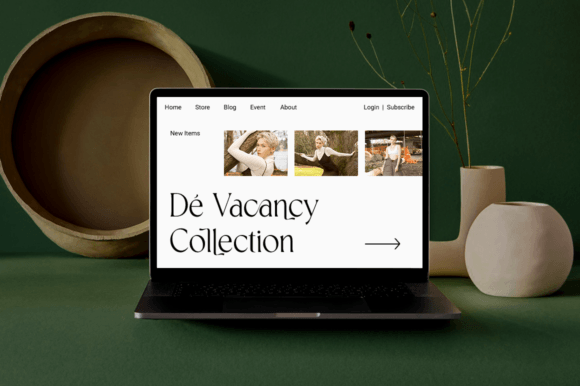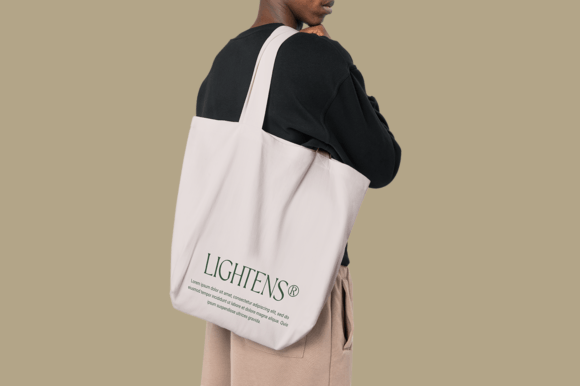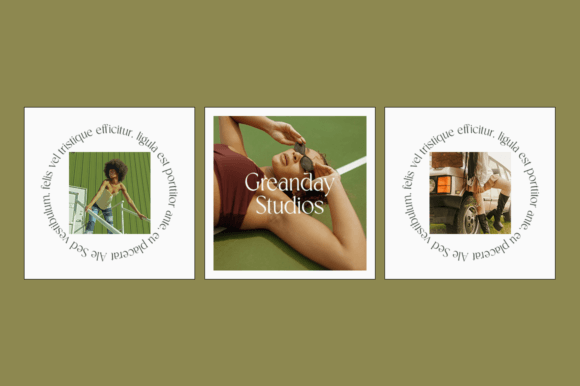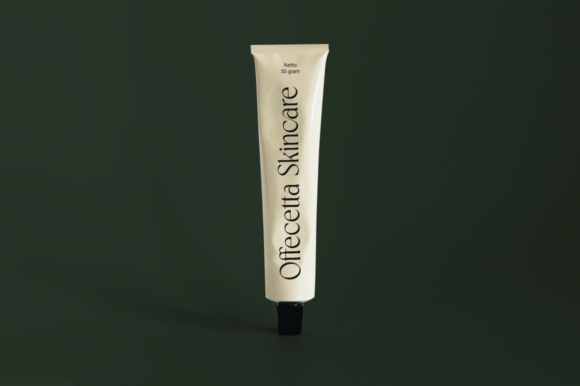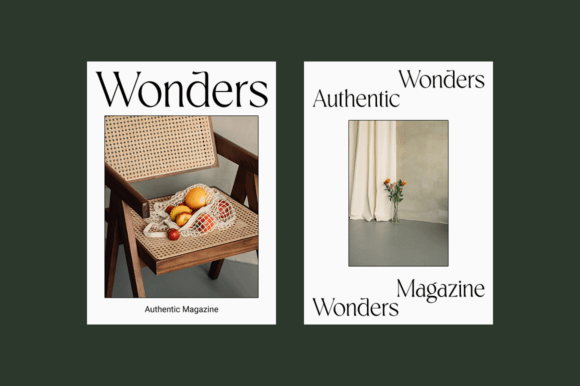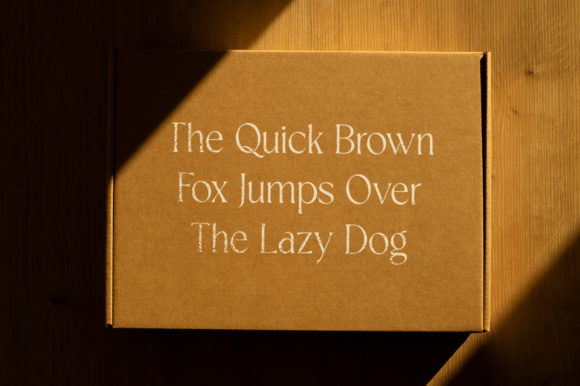
Discover the Timeless Elegance of Academia Font
Have you ever stared at a blank page, waiting for the perfect font to spark your creativity? I’m sure we’ve all been there. For designers, the hunt for the perfect font can be a daunting task. But what if I told you that you’ve been missing out on a hidden gem? Enter the Academia Font, a sophisticated, thin-lettered serif font that’s sure to elevate your designs to the next level.
Academia Font is more than just a pretty face – it’s a versatile tool that can be used across a wide range of designs, from elegant posters to sophisticated business cards. Its neat and clean style makes it a valuable addition to any designer’s toolkit, and its adaptability ensures that it will never go out of style.
Academia Font Key Features
- Font Size: The font has a large character set with over 1,000 glyphs, making it suitable for academic and professional use.
- Resolution: Academia Font is optimized for high-resolution displays and can be used at resolutions up to 300 DPI.
- Unique Characteristics: The font features a distinctive, elegant design with a high level of detail, making it ideal for academic and professional applications.
- Language Support: Academia Font supports a wide range of languages, including Latin, Greek, and Cyrillic alphabets.
Academia Font Review
Overall, I think the Academia Font is a great choice for academic and research-related materials. It has a classic, timeless feel that evokes a sense of tradition and sophistication.
- ✨ The font is highly legible, making it perfect for long documents and academic papers.
- ✨ The classic feel of the font makes it a great choice for publications, journals, and other academic materials.
- ✨ The font is highly customizable, allowing users to adjust the spacing, size, and style to suit their needs.
- ⚠️ The font may not be the best choice for modern, creative projects that require a more playful or experimental feel.
- ⚠️ The font may not be as effective for digital displays, as it can appear a bit pixelated or fuzzy.
Overall, I think the Academia Font is a solid choice for academic and research-related materials. It’s highly legible, customizable, and has a classic feel that’s perfect for publications and journals. However, it may not be the best choice for more modern or creative projects.
Academia Font Practical Application Guide
For best results, use Academia Font in headings and titles to create a clear hierarchy of information. It’s also ideal for academic and educational content, such as research papers, essays, and presentations.
When using Academia Font, keep in mind that it’s a serif font, so it works best with body text and headings. Avoid using it for large blocks of text or as a main body font.
Alternatives to Academia Font for Designers
Playfair Display is a luxurious, high-end serif font ideal for formal and elegant designs. It features intricate details and a classic look, making it perfect for invitations, wedding designs, and high-end branding. Compared to Academia Font, Playfair Display is more ornate and decorative, but both share a classic and sophisticated aesthetic.
Merriweather is a traditional, classic serif font with a strong emphasis on legibility. It’s suitable for body text, headings, and titles, and works well in various design contexts, including print and digital media. In comparison to Academia Font, Merriweather is more straightforward and lacks the decorative elements, but it’s still a highly readable and versatile font.
3. Georgia
Georgia is a serif font specifically designed for digital media, with a focus on readability and clarity. It’s a great choice for body text, articles, and other content where legibility is crucial. Compared to Academia Font, Georgia is more modern and designed for on-screen reading, while Academia Font is more suited for print and formal designs.